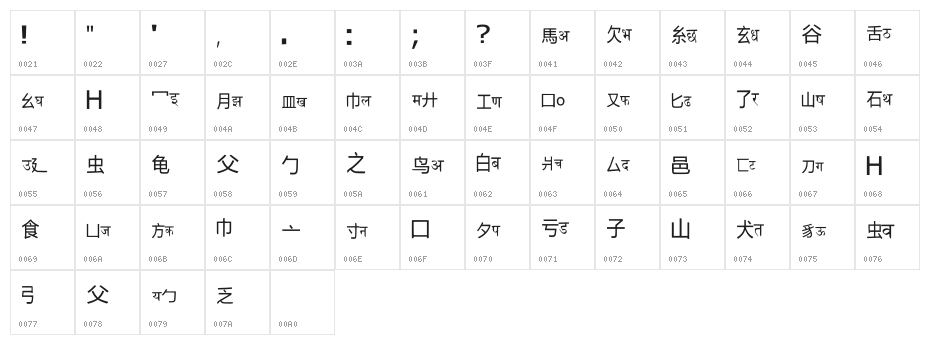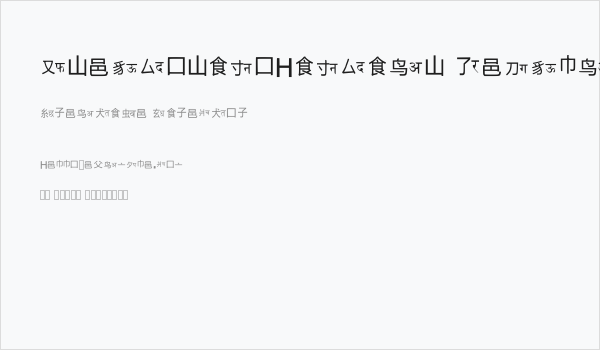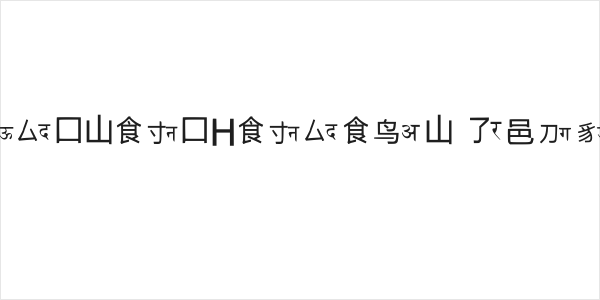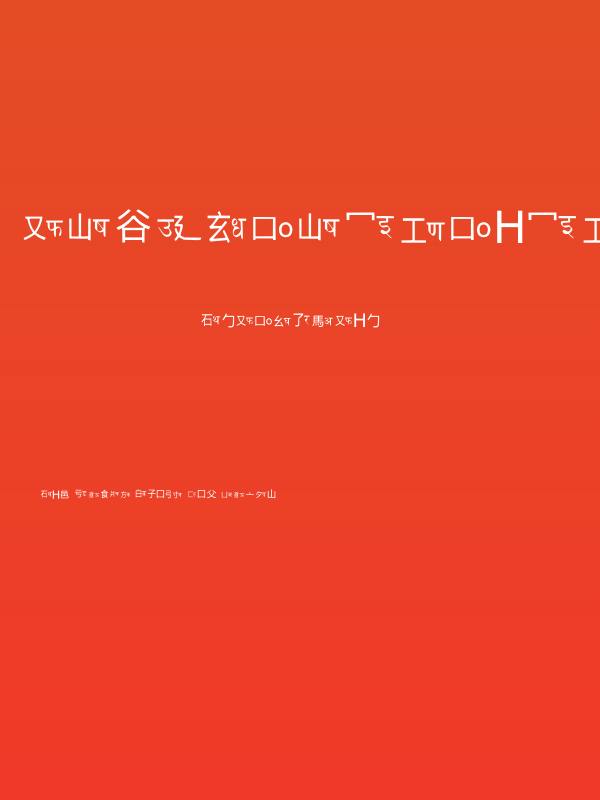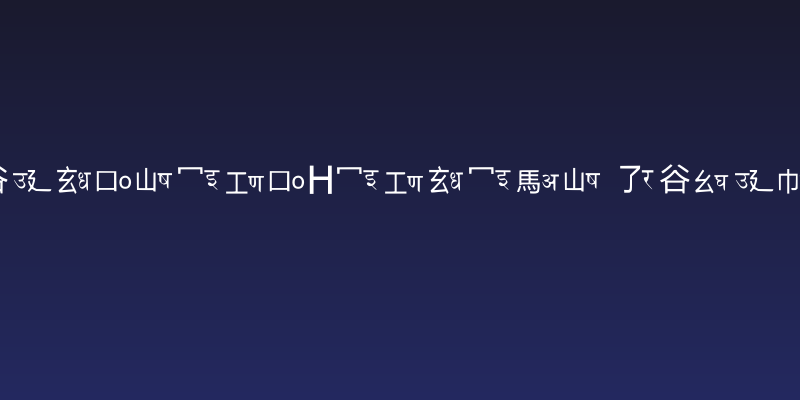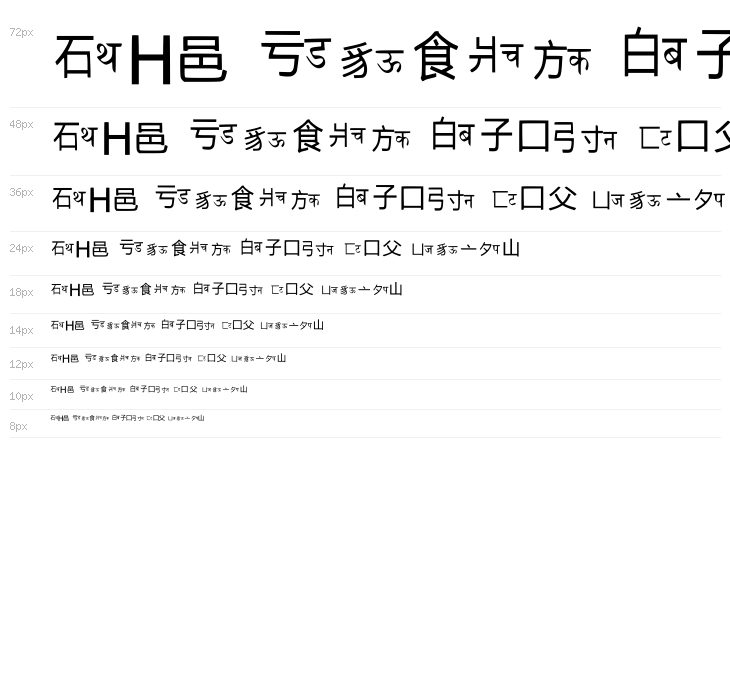
Pseudosinohindias Regular Font
Pseudosinohindias Regular Description
This font features a unique blend of geometric and abstract shapes, resembling a fusion of various script styles. The characters are crafted with a modern, artistic flair, incorporating elements that suggest a mix of cultural influences. Each letterform is distinct, with sharp angles and clean lines that create a visually intriguing pattern. The font maintains a consistent stroke weight throughout, giving it a balanced and cohesive appearance. Its unconventional style makes it stand out, offering a fresh take on traditional typography.
Use CaseLogos, Posters, Artistic projects
Proposed ProjectsIdeal for creative projects such as album covers, posters, and branding that require a distinctive and artistic touch.